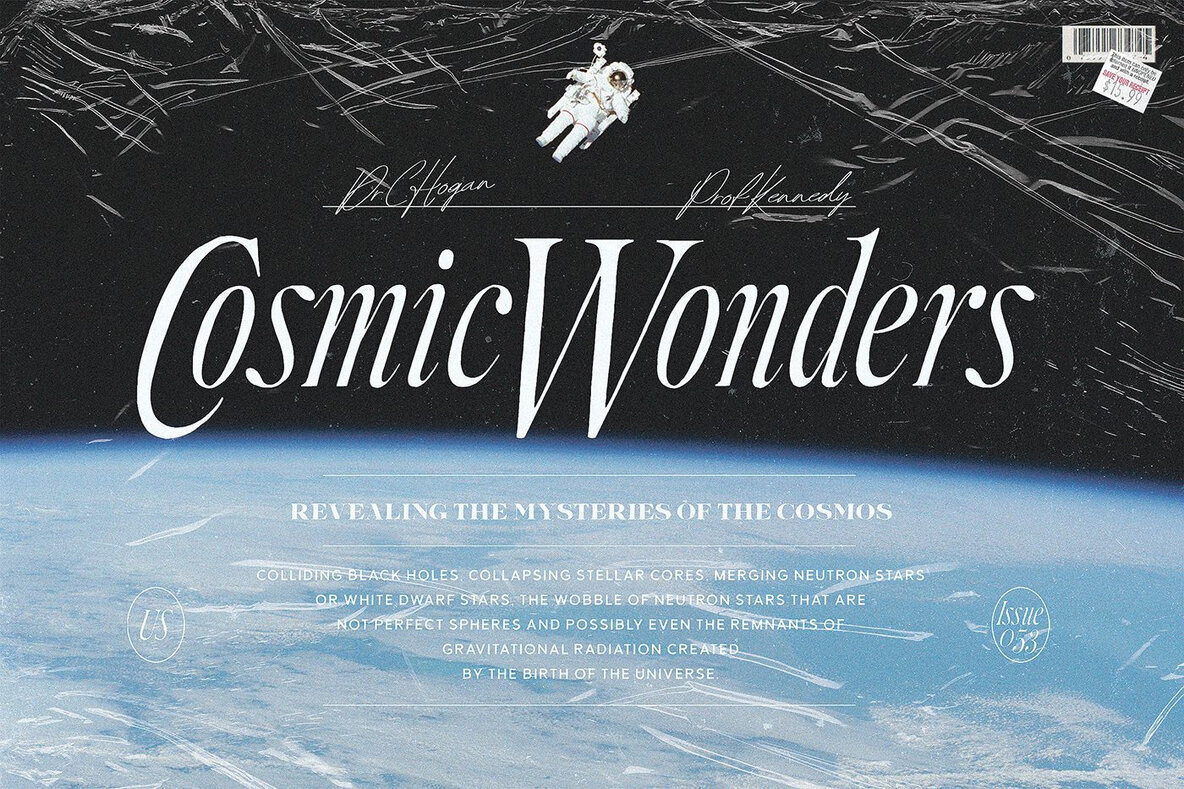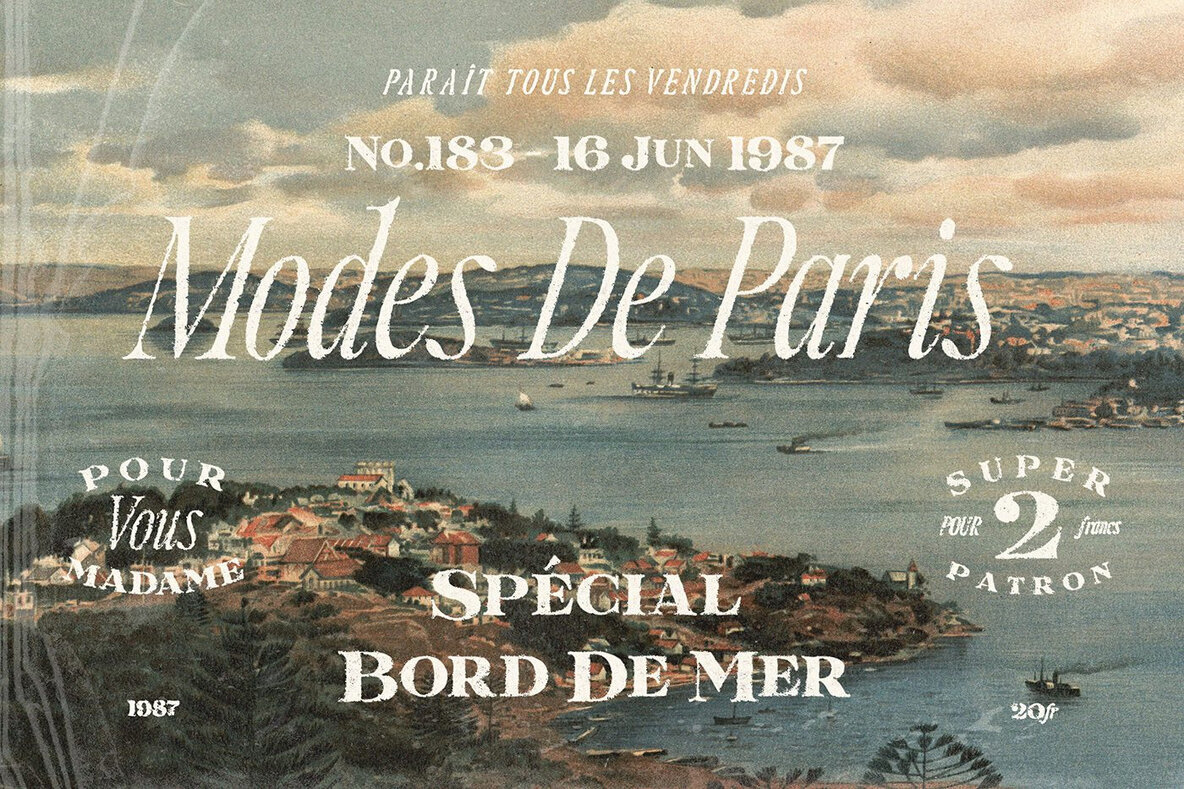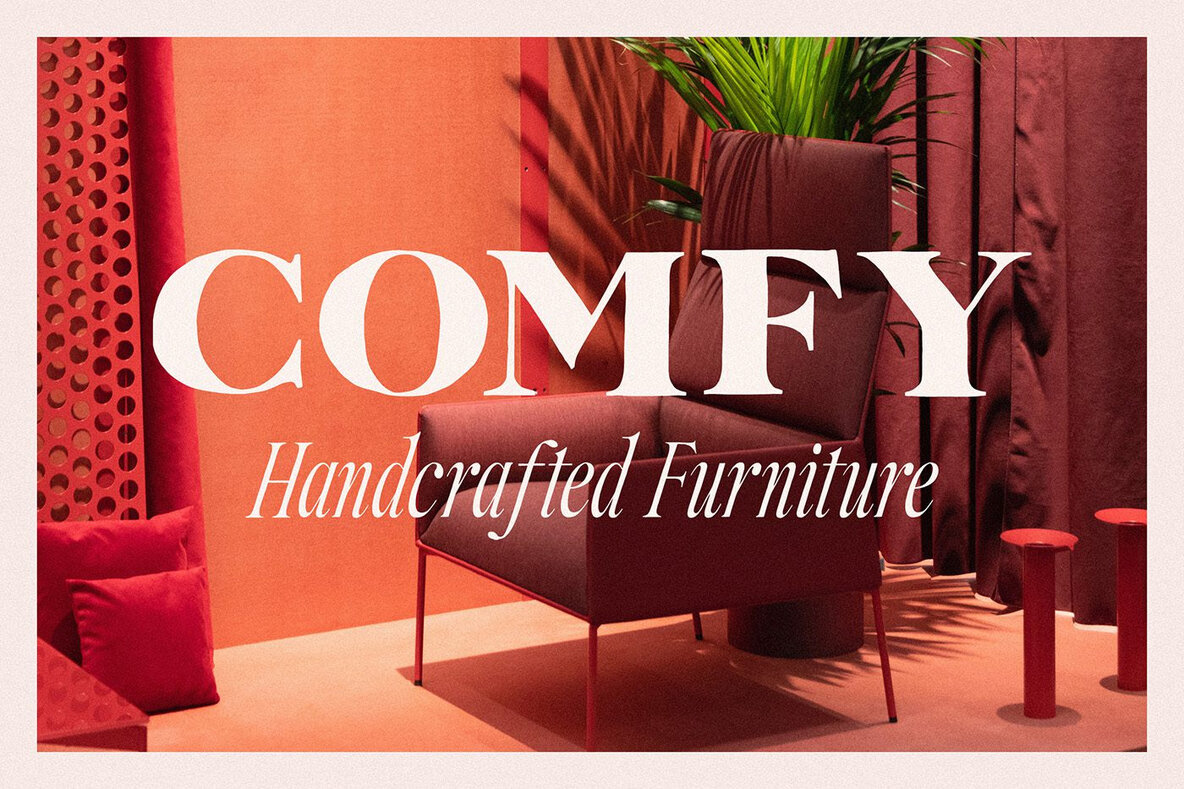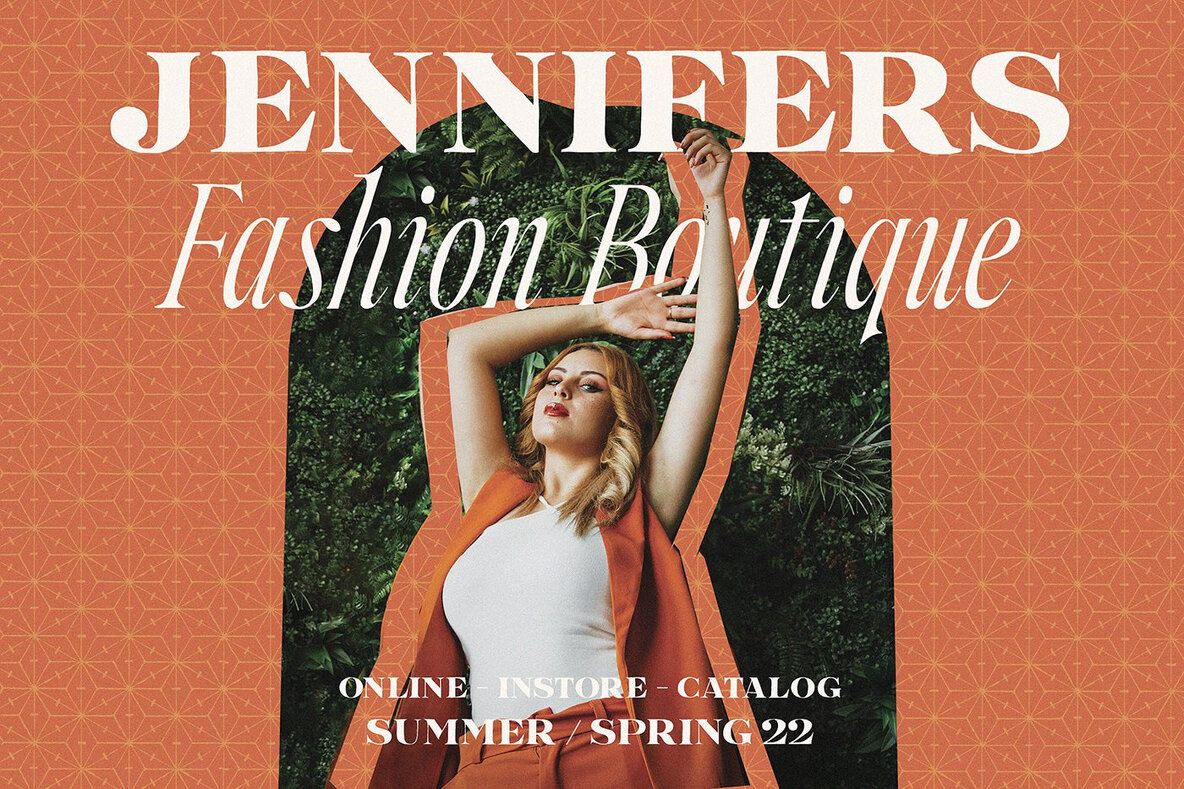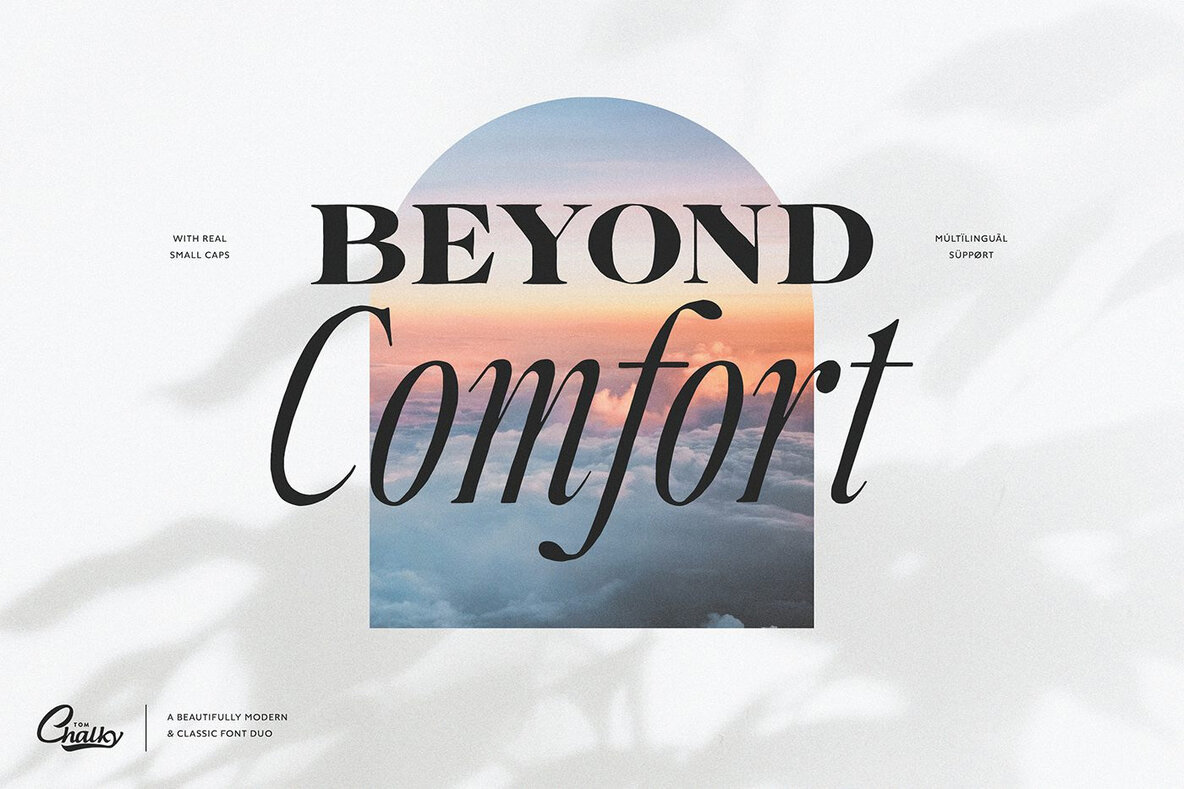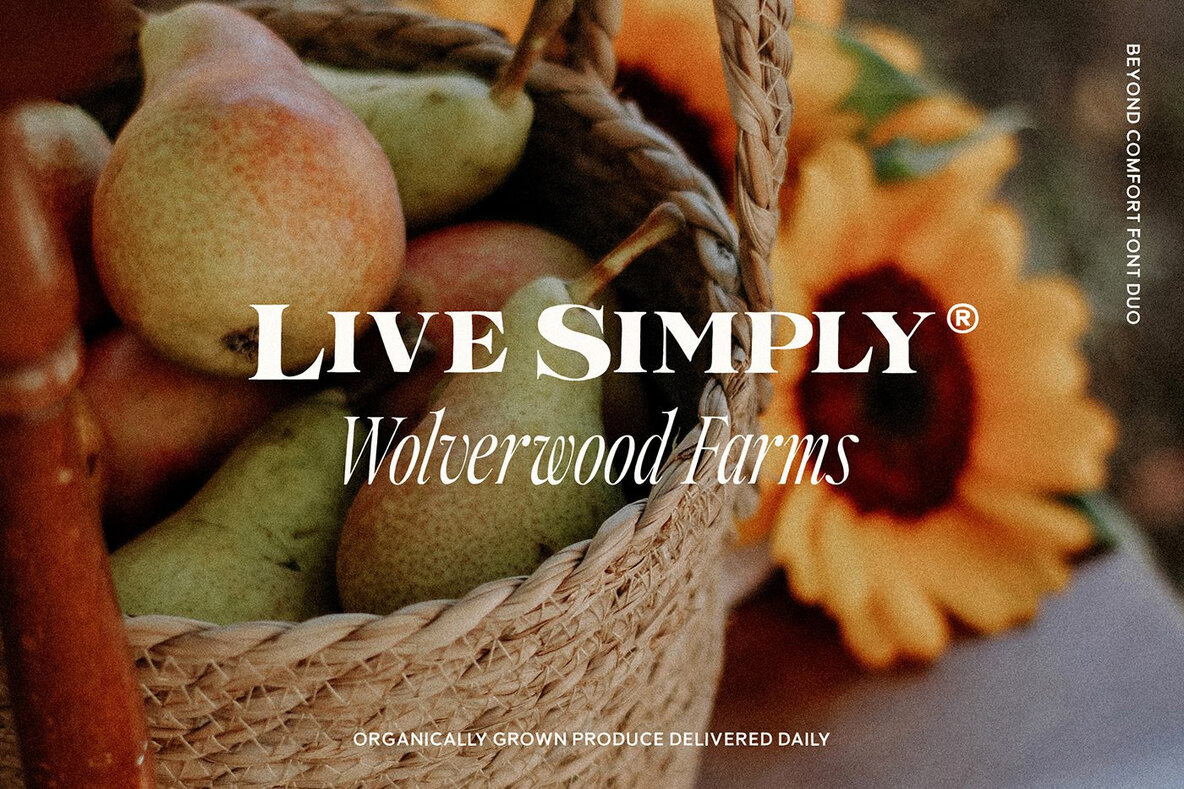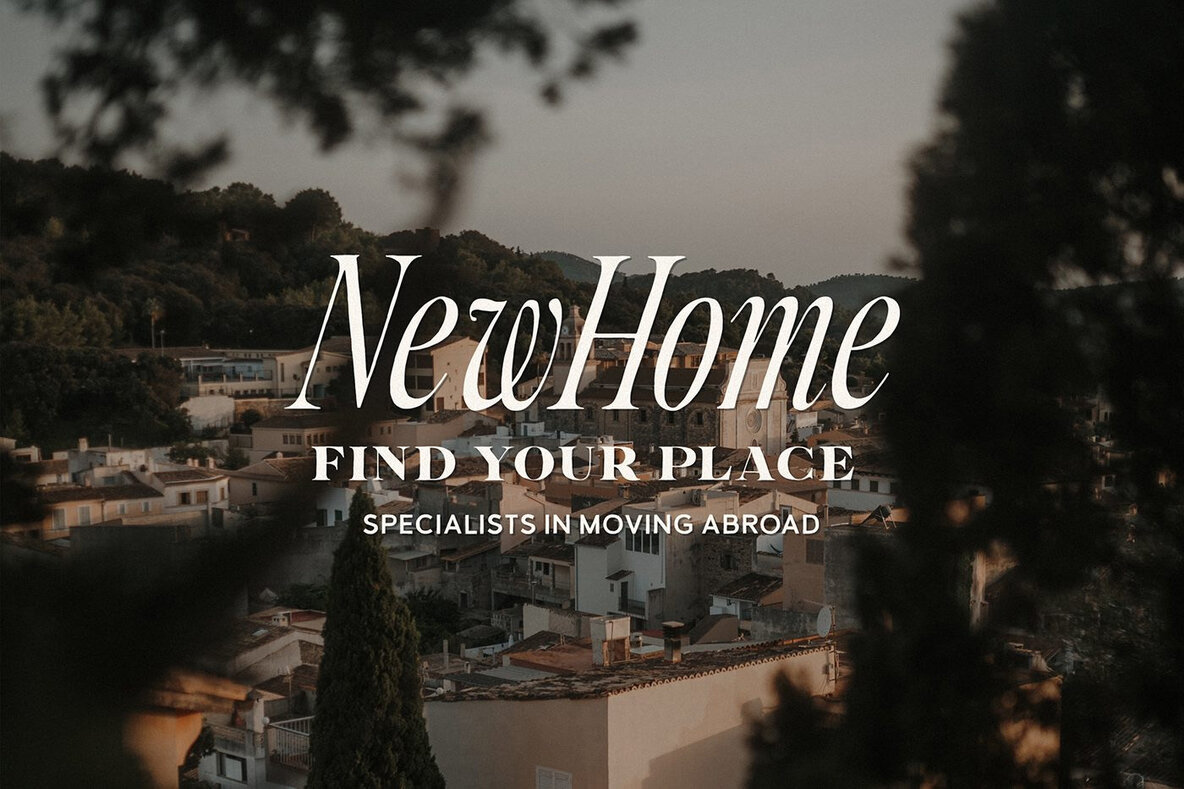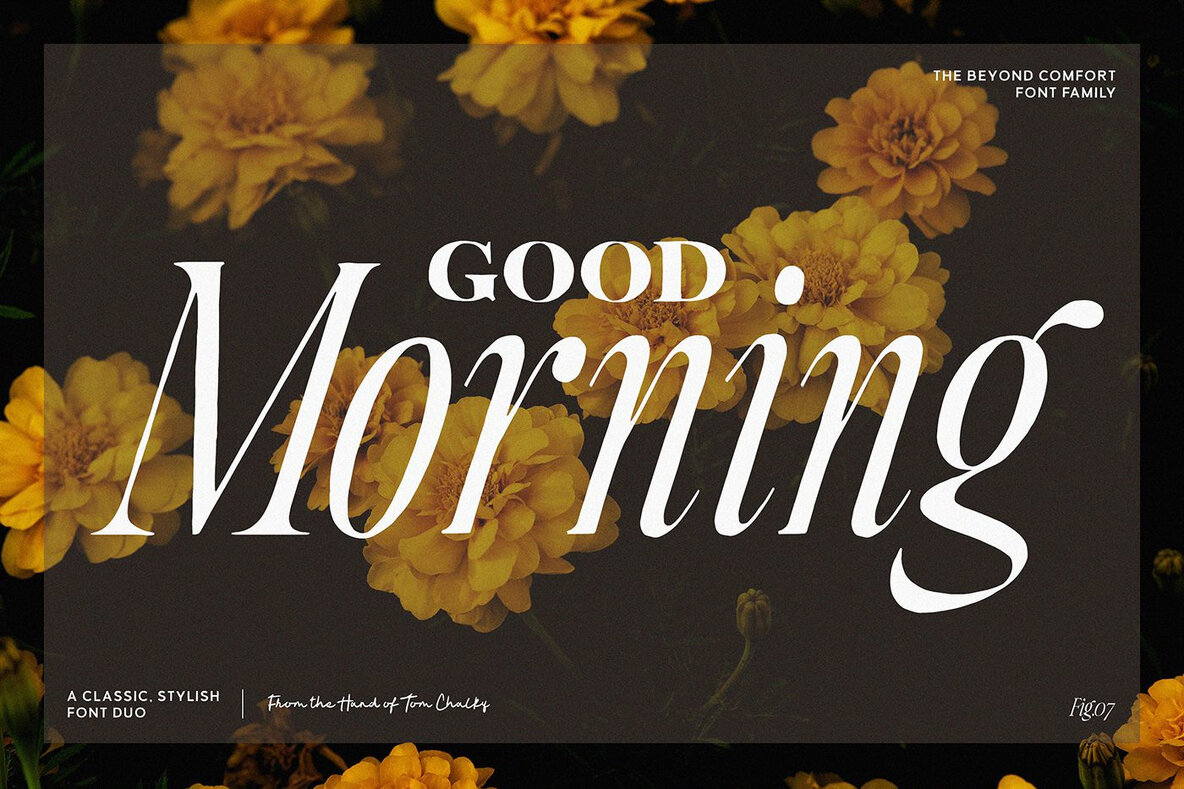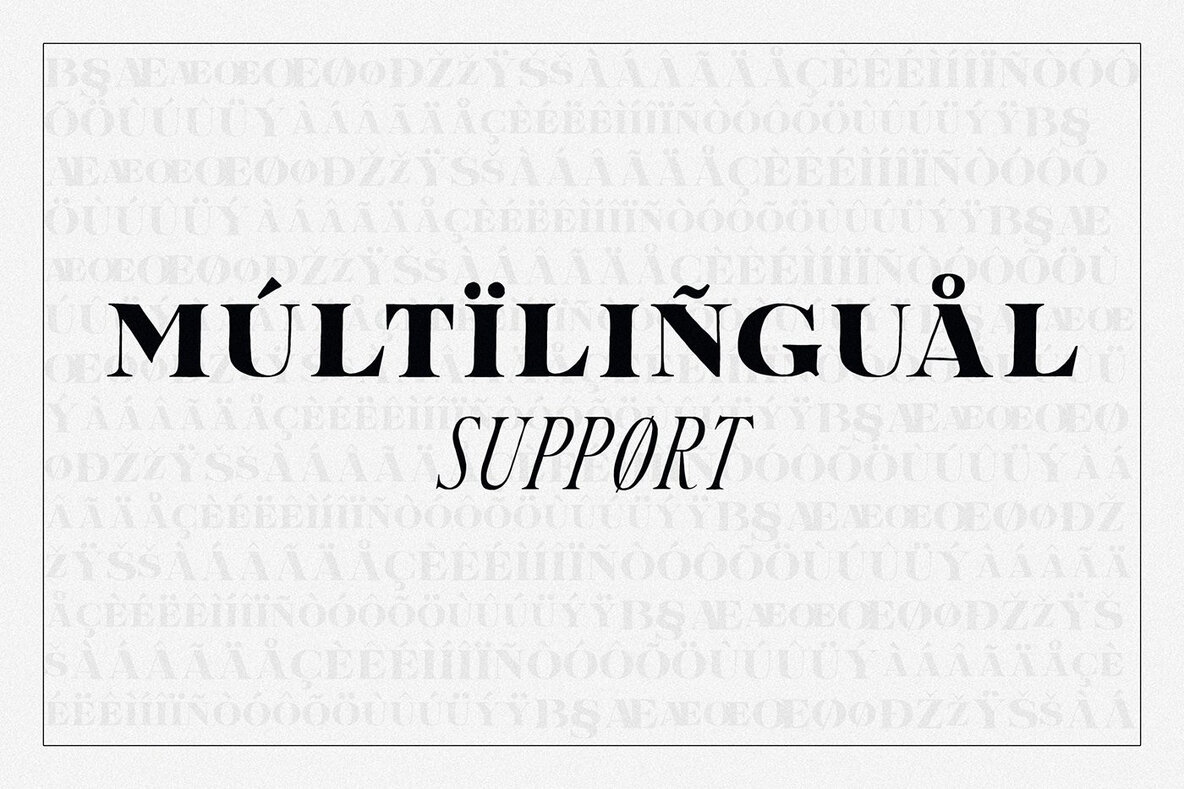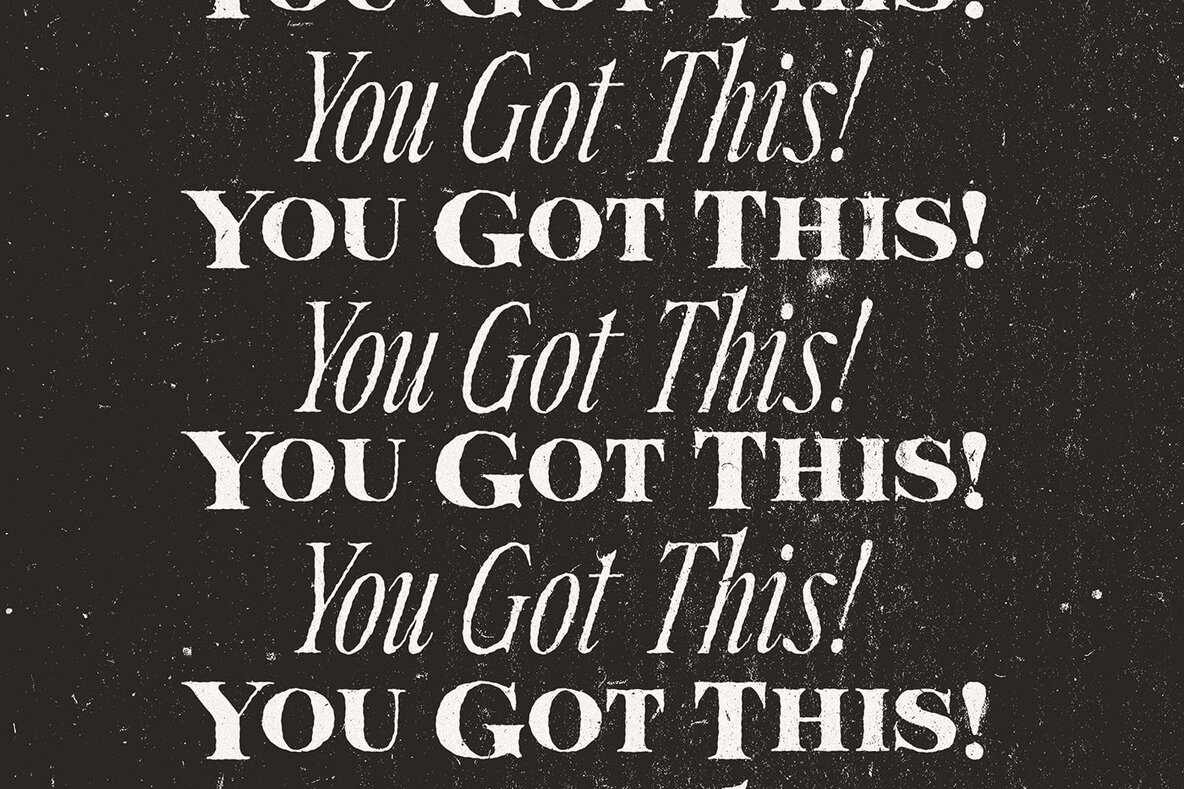
TC Beyond Comfort Font
Beyond Comfort Italic
Beyond Comfort Serif
Introducing Beyond Comfort! An elegant font duo that combines vintage inspiration with modern versatility, drawing from the editorial styles of classic magazines and advertisements. A unique pairing that balances contrast and harmony, this duo instantly elevates the tone of any project. Whether used independently or together, each font brings a distinct voice that suits everything from editorial layouts to branding and advertising. Perfect for those seeking a stylish, timeless aesthetic, this font duo adapts effortlessly to both bold headlines and refined body text.